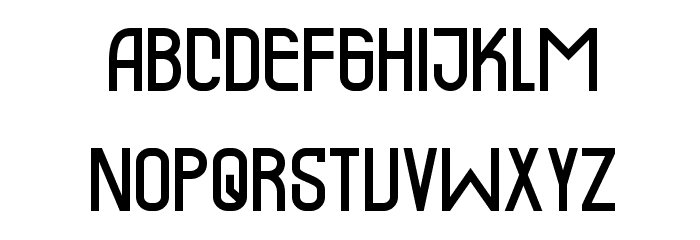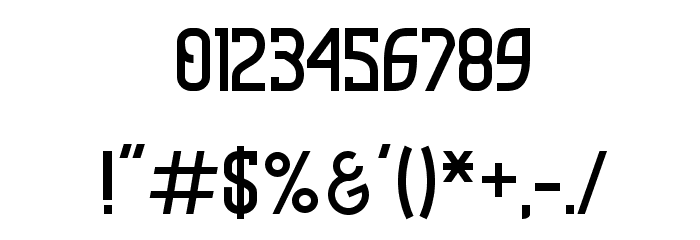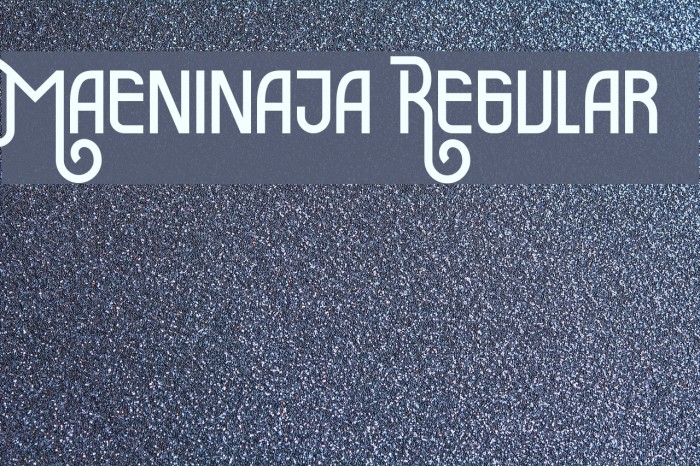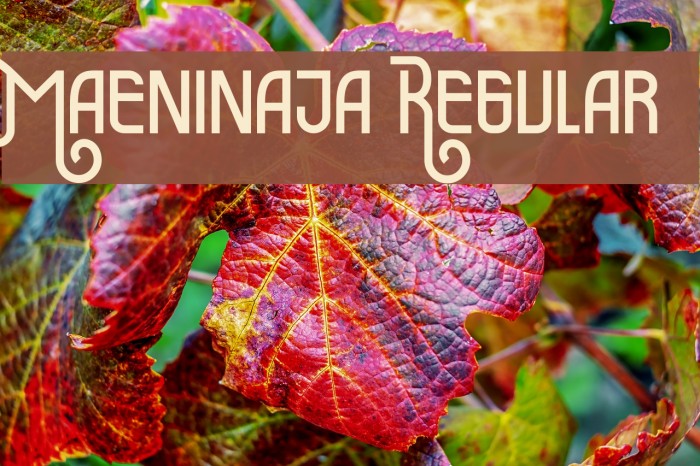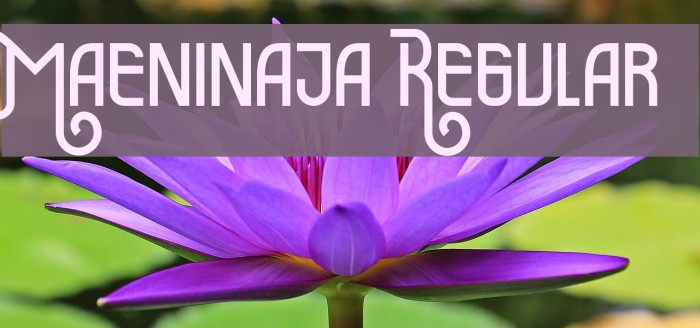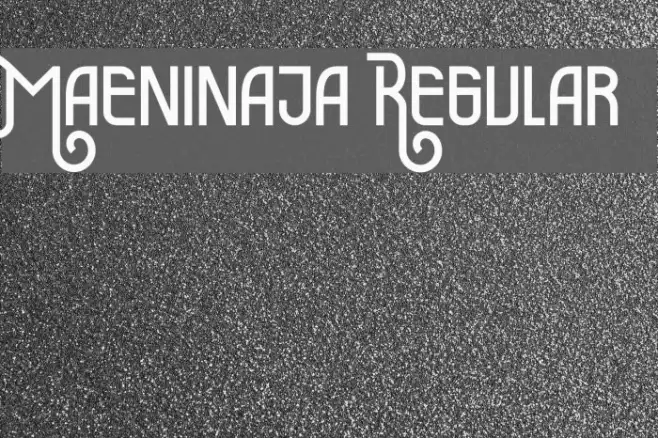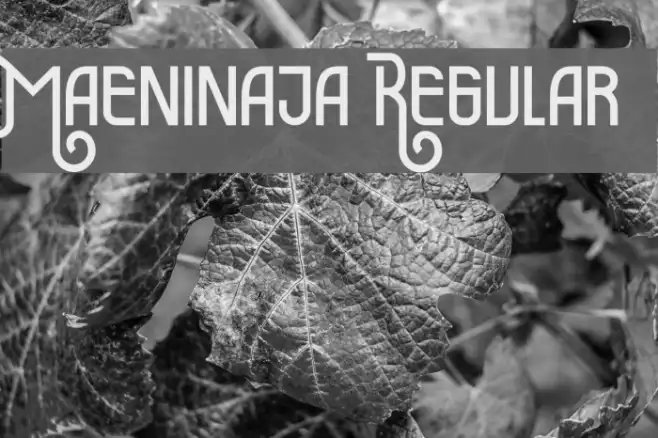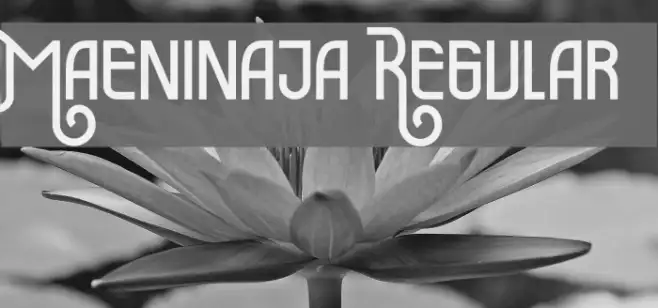
Maeninaja Regular Font
This font features a unique blend of decorative and geometric elements, creating a striking visual appeal. The uppercase letters are adorned with intricate swirls and extensions, adding an ornamental touch that stands out. The lowercase and numeric characters maintain a more straightforward, geometric style, offering a balanced contrast to the elaborate uppercase. The special characters are consistent with the overall design, featuring clean lines and a modern aesthetic. This font is ideal for projects that require a bold and artistic statement, combining decorative flair with modern simplicity.
A decorative and geometric font with intricate uppercase and clean lowercase characters.
- Proposed Projects: Ideal for branding, posters, album covers, and any project needing a bold, artistic touch.
- Overall Style: Modern, Decorative